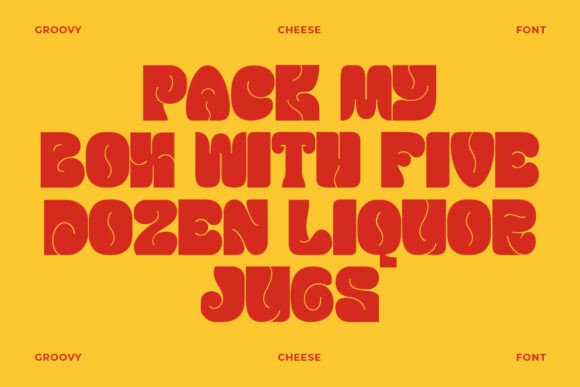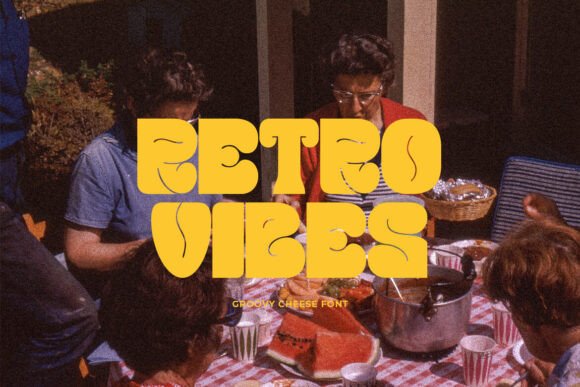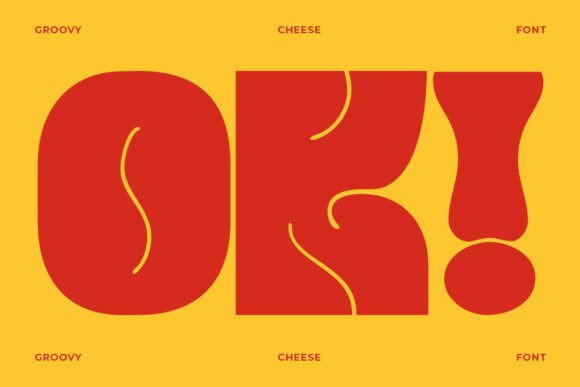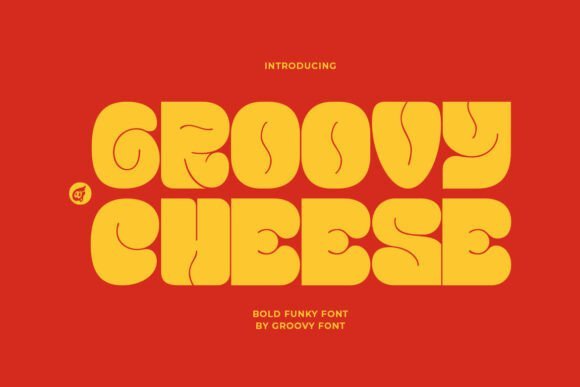
Introduction to Groovy Cheese Font
Groovy Cheese is a bold funky font characterized by its fat appearance and smooth curves.
The thick and rounded design of this font exudes a sense of fun and playfulness, making it a standout choice for projects that require a lively and energetic vibe The smooth curves add a touch of whimsy and personality to the text, lending a distinct and modern flair to any design.
Key Features of Groovy Cheese Font
Why Choose Groovy Cheese Font?